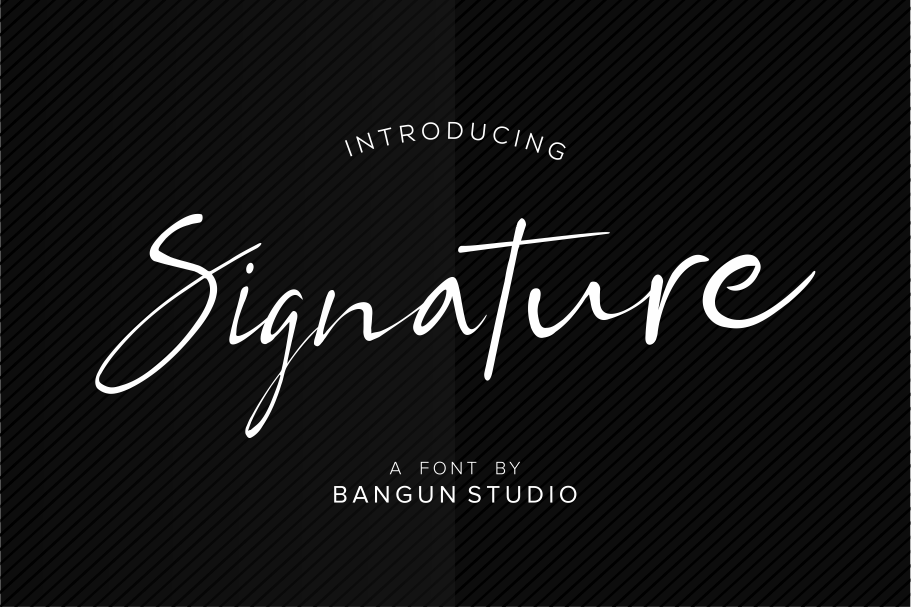
BS Signature
Bs Signature
Bs Signature is a signature script-style font with a very luxurious look. It can look very soft and very firm in an elegant frame, high but not too towering, and flat but not too low.
This font is perfect for branding, or any related project. This font also has ligatures to present a natural handwritten impression.